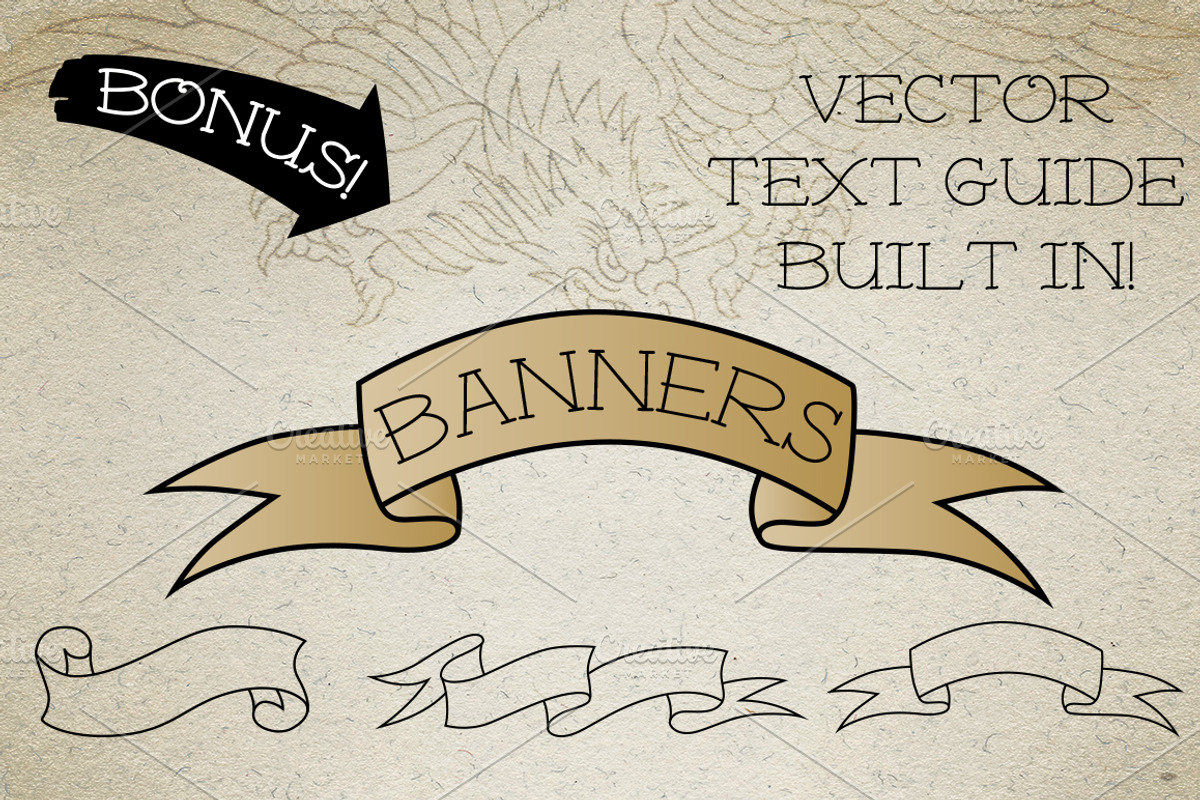
Traditional Tattoo Cap N' Serif
Classic single line traditional tattoo font in three variations. Included in this package is a curvy serif, flat serif and san-serif all three for one price plus an extra special bonus: banners ready to use with your new font, text guides included for your favorite illustration software (comes in PDF, EPS and AI file types). This style font has been used in tattooing all the way back to the early 1900's (and probably further still). It's a fixed width, old school font with rounded caps to each line, making it look as if it was done with a pen or tattoo needle.